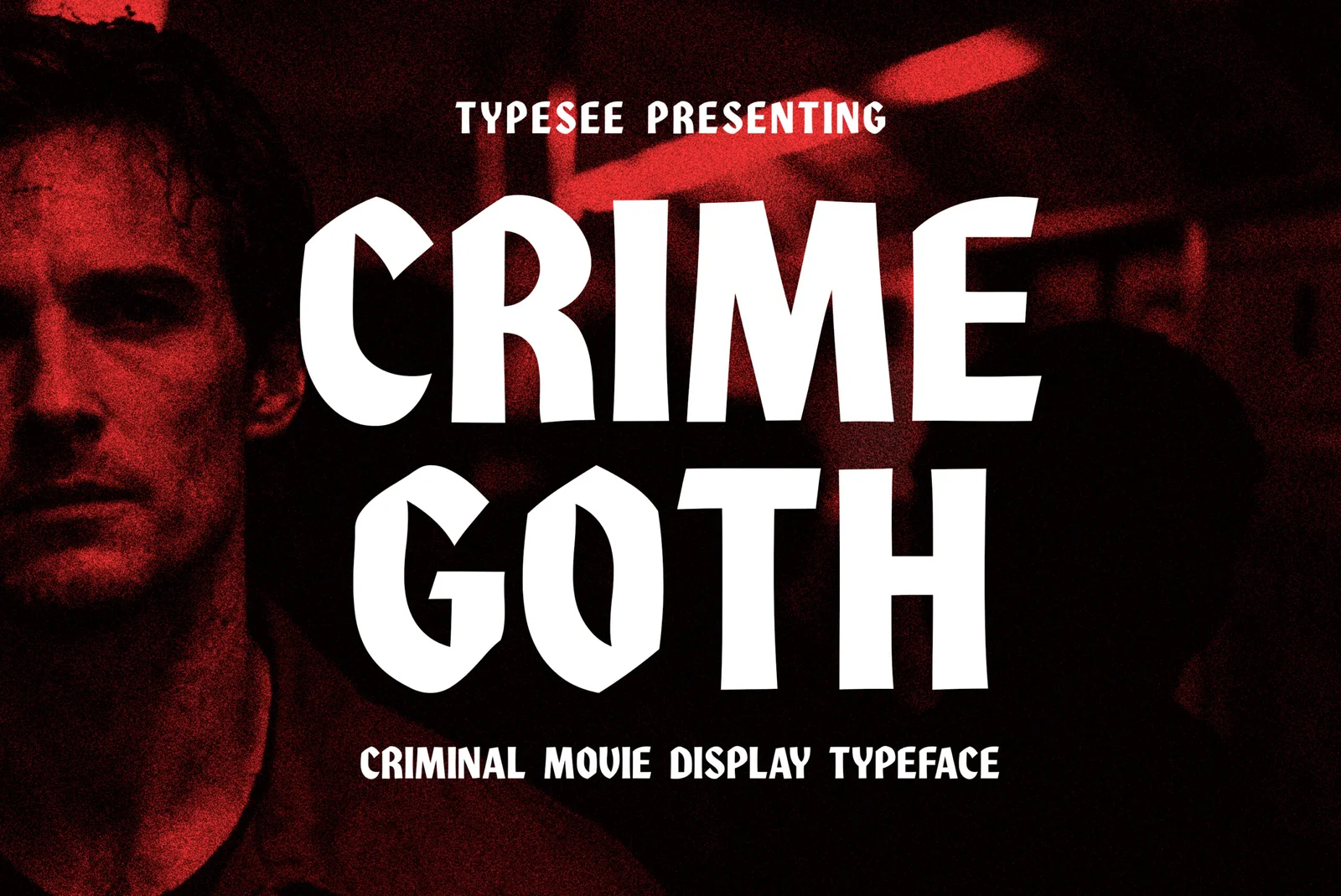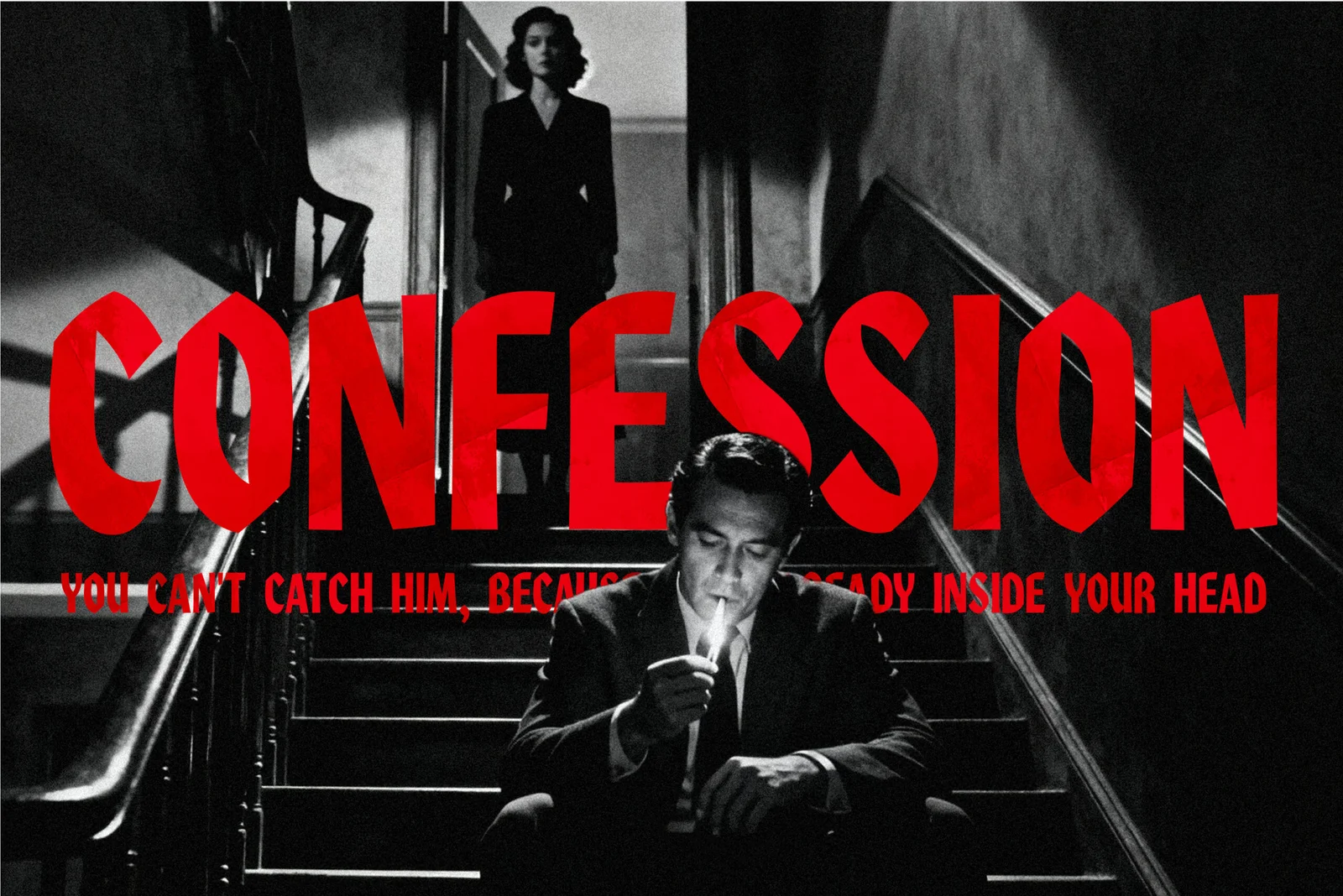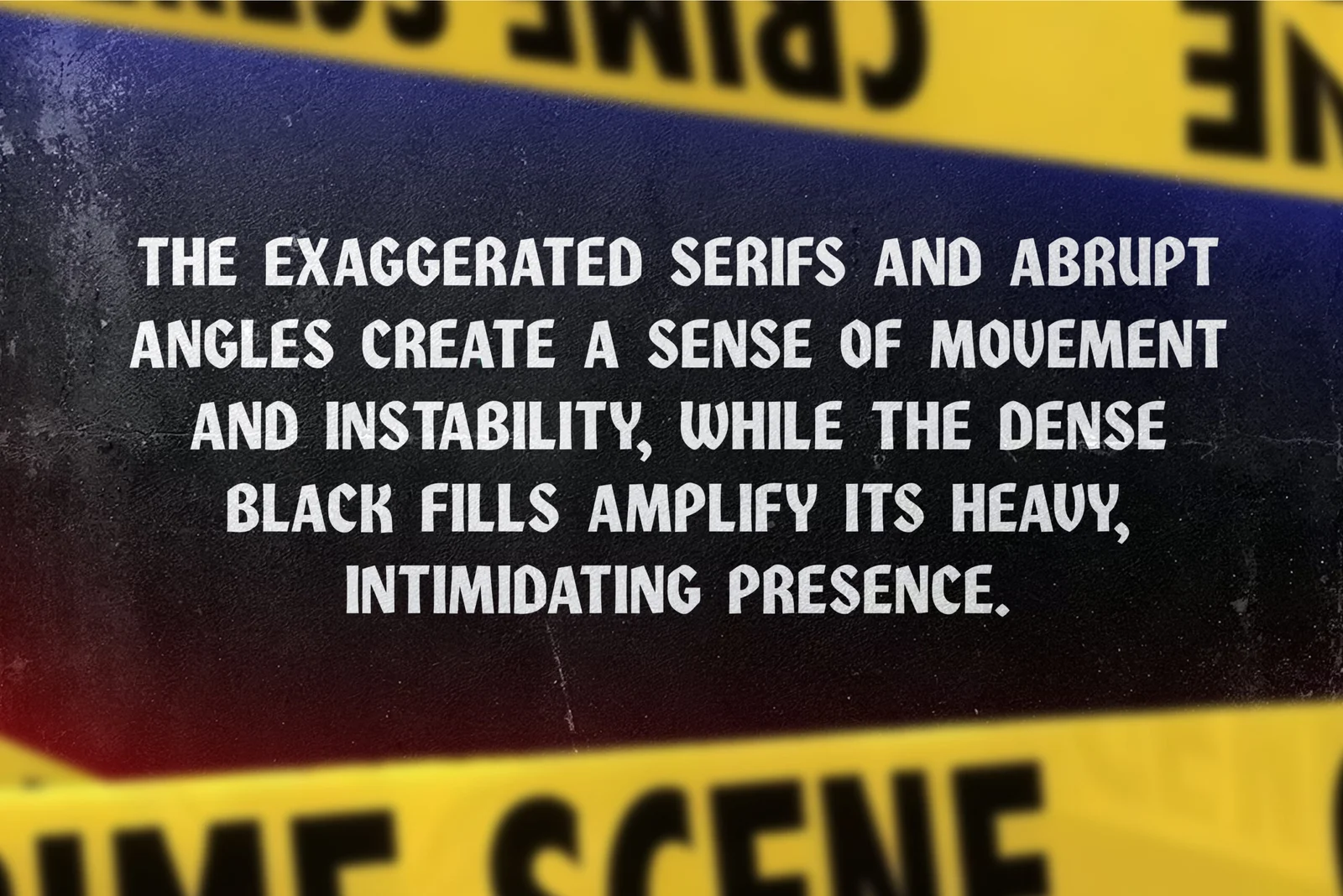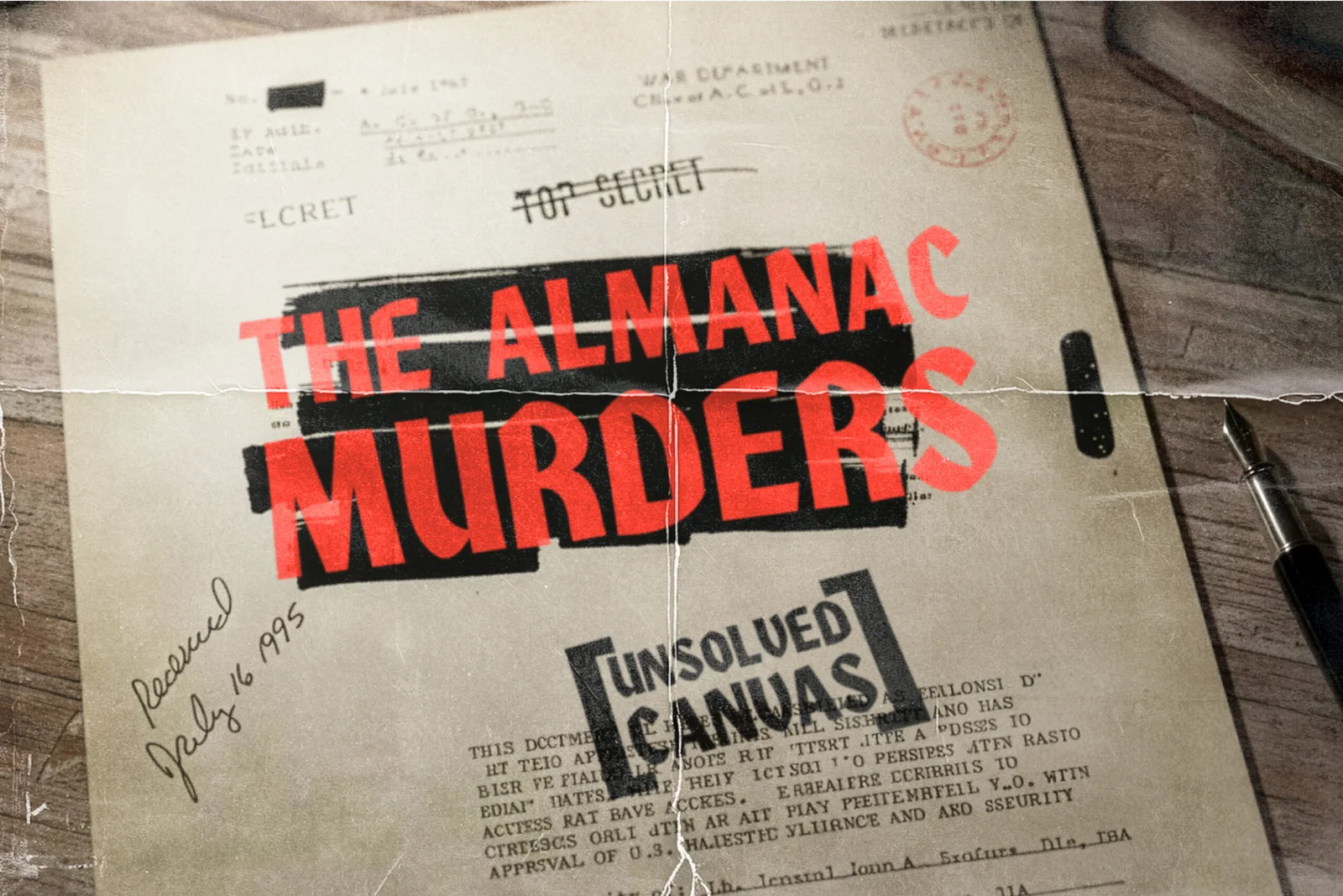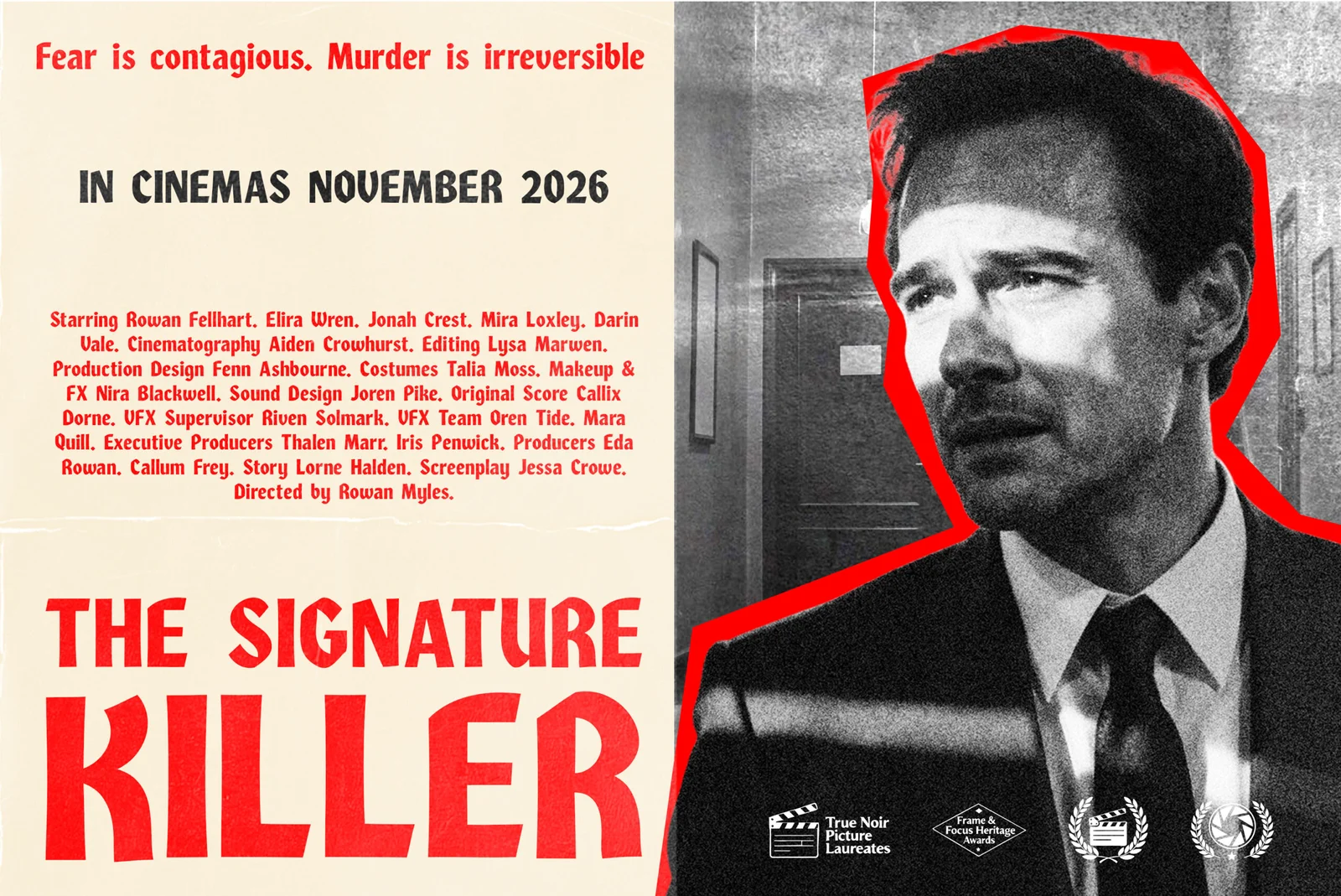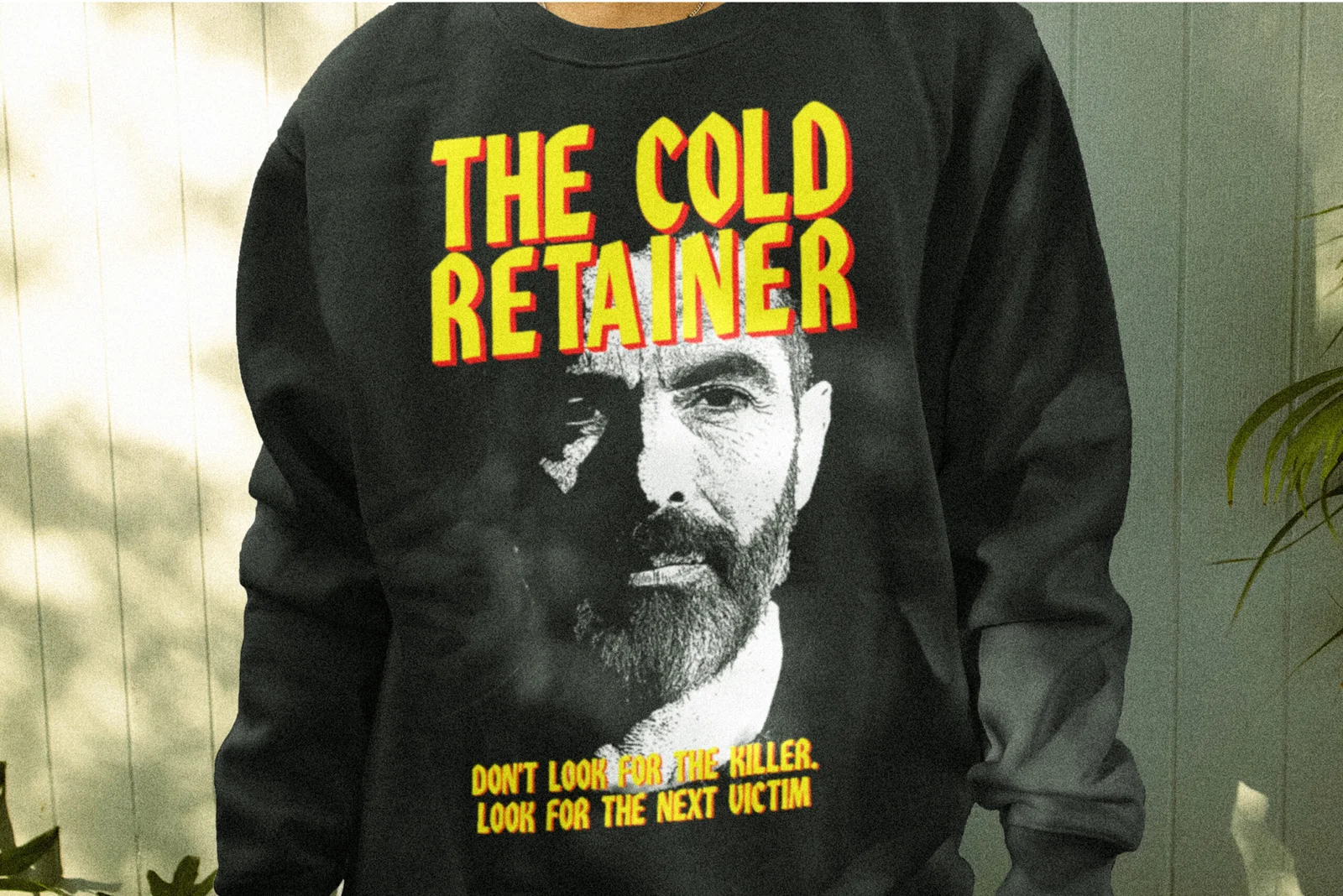
Crime Goth is a dramatic font inspired by classic crime movies and neo-noir style. Its bold, angular design creates a sense of tension and intimidation. With its heavy lines and exaggerated serifs, this font is ideal for projects that require a dark, suspenseful tone.
It combines traditional Gothic elements with a modern, edgy twist, making it perfect for creating a bold visual statement. The letterforms utilize abrupt angles and an irregular, slightly unsteady contour to convey a strong sense of movement and instability. The overall effect is intimidating and suspenseful, making it ideal for creating powerful headlines.